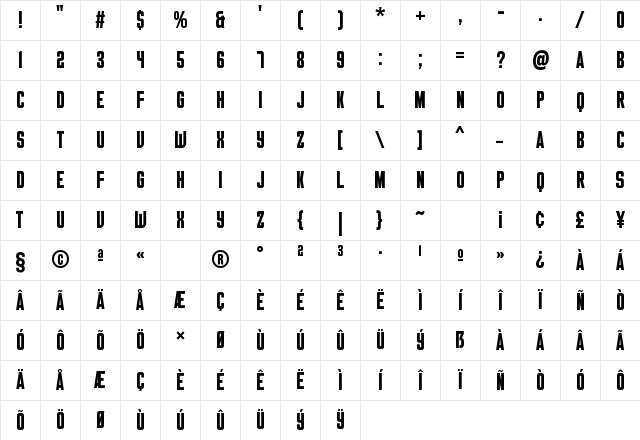
Tokyo Regular
Foundry: Graphicxell
Designer: Usman Albaehaqi
Design Context for Tokyo
Tokyo is a composed and adaptable typeface that performs quietly and consistently across a wide range of design contexts.
Pro Tip: Use Tokyo in both headline and body roles to test its range before committing to a single application.